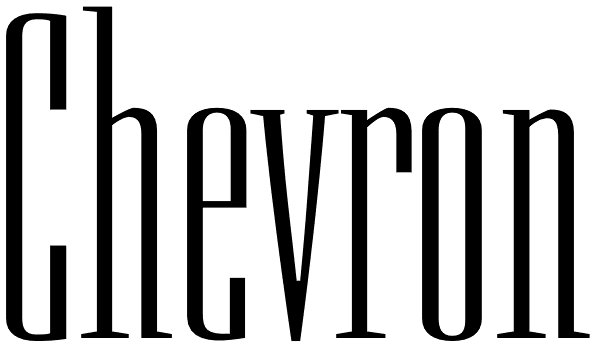
Chevron
For that tight fit, STF Chevron is perfect. An ultra-condensed display font, with a complete character set. The name? It's named after an oil company, but the shapes of the serifs reflect that as well. With some art deco overtones, try Chevron in...